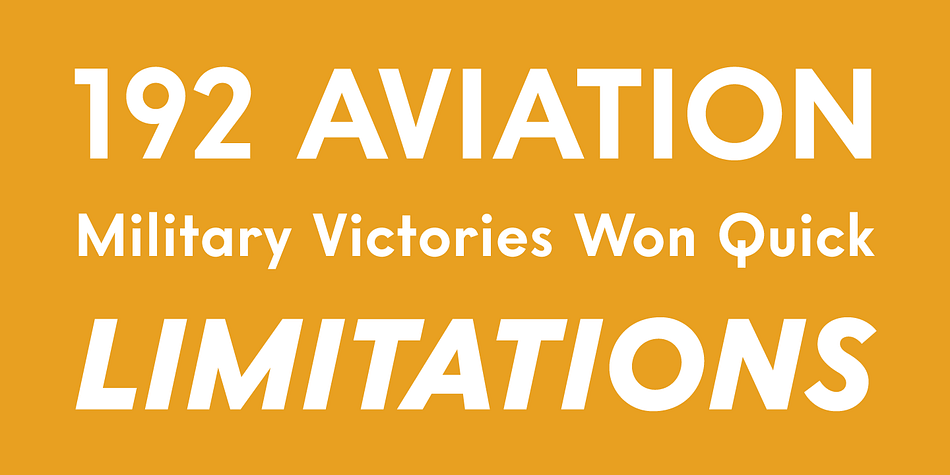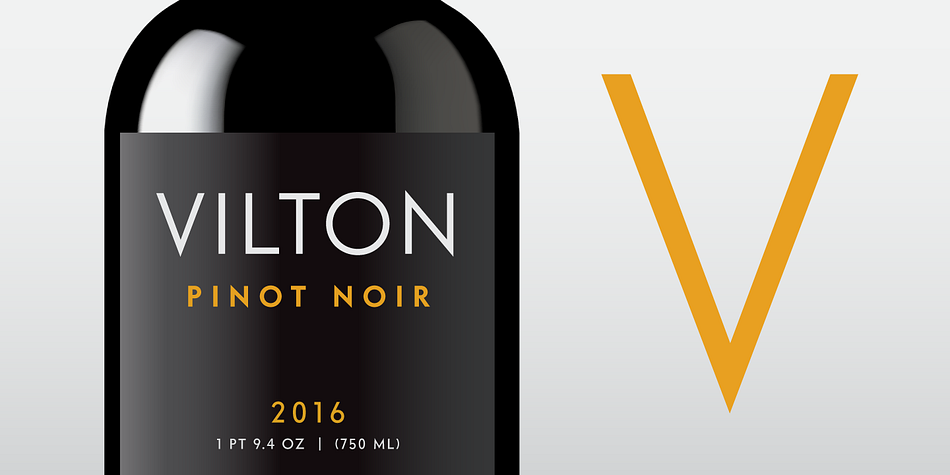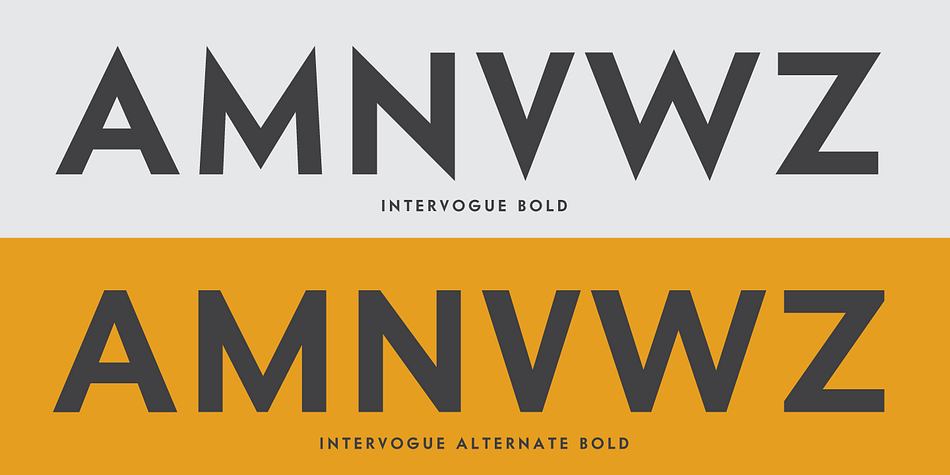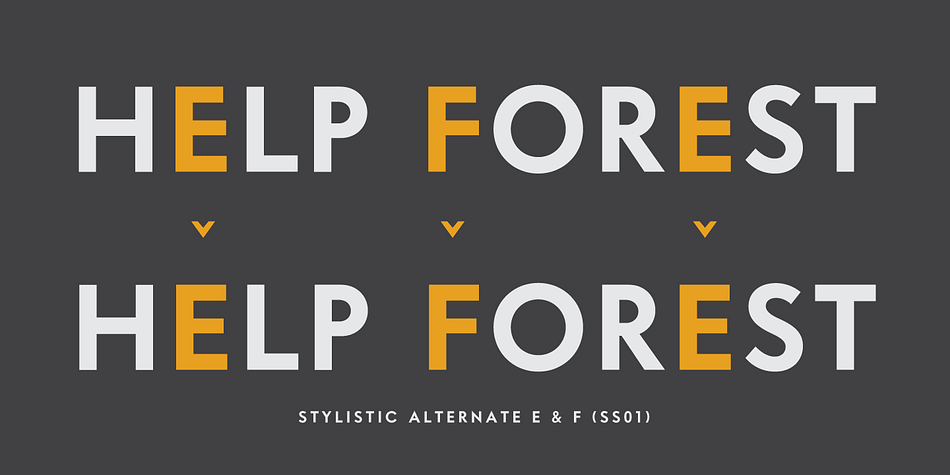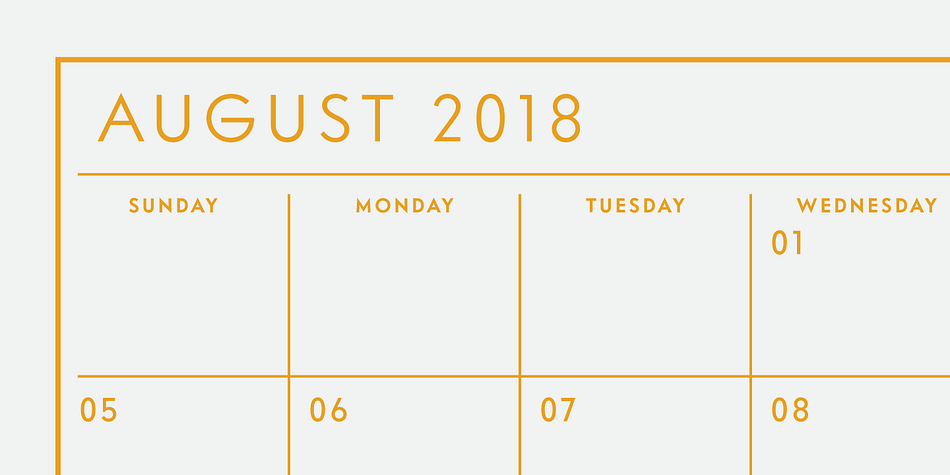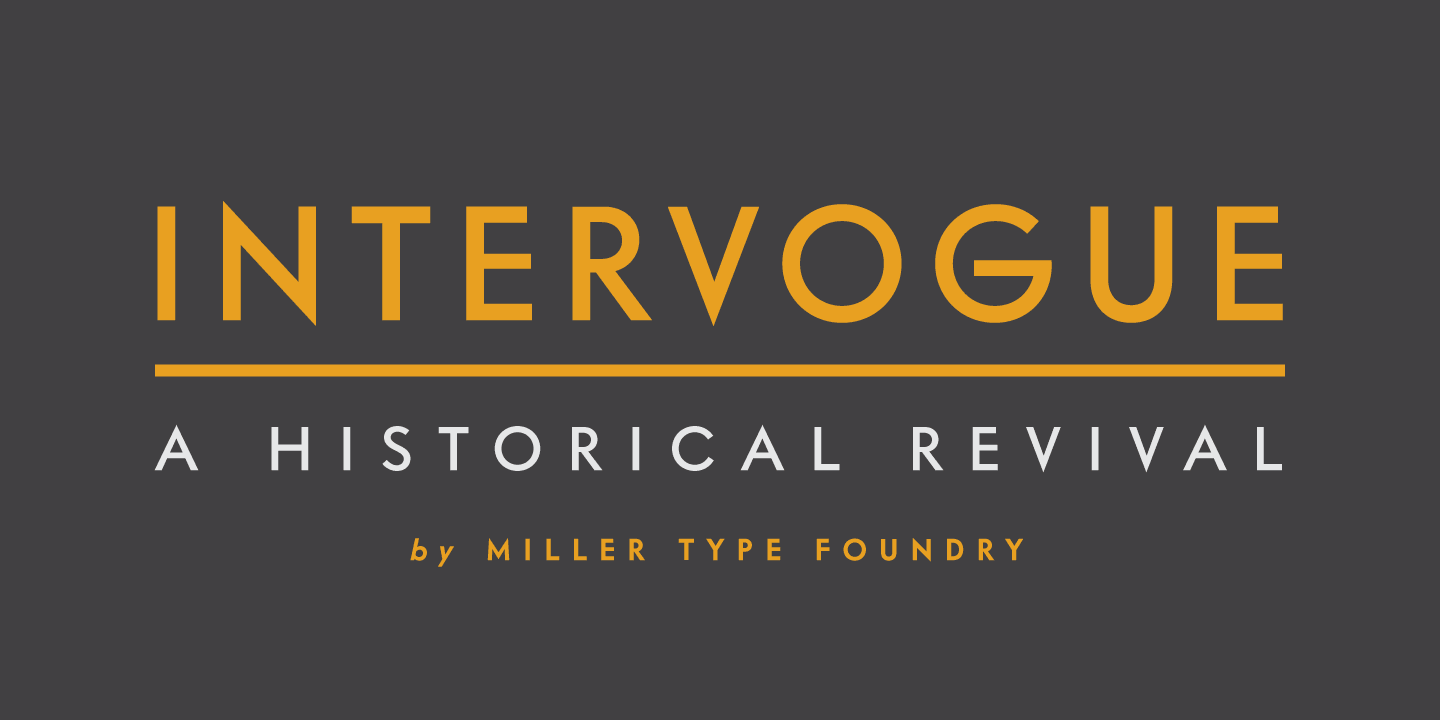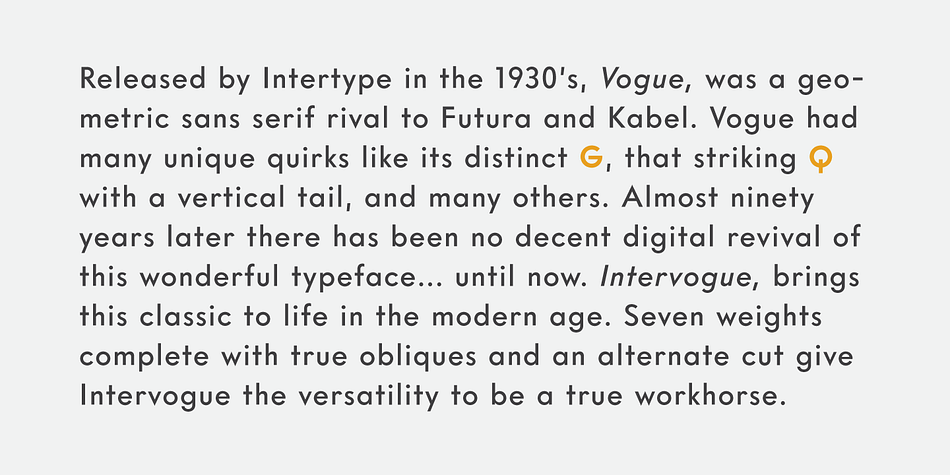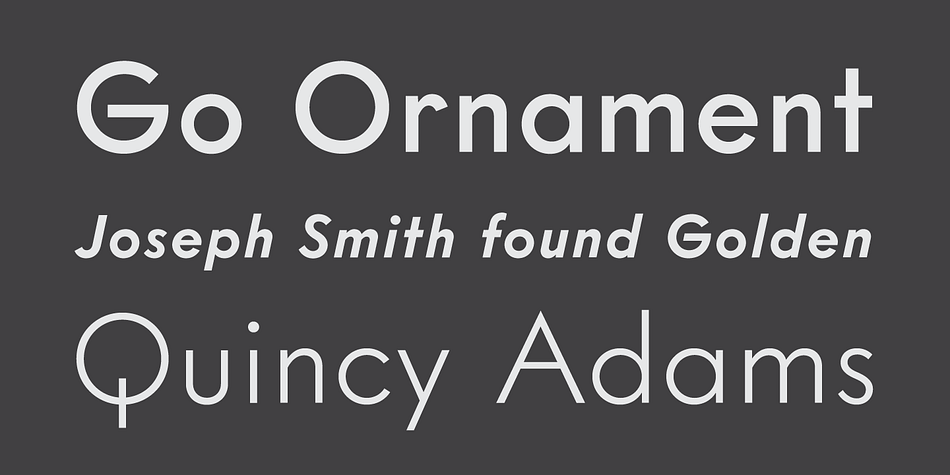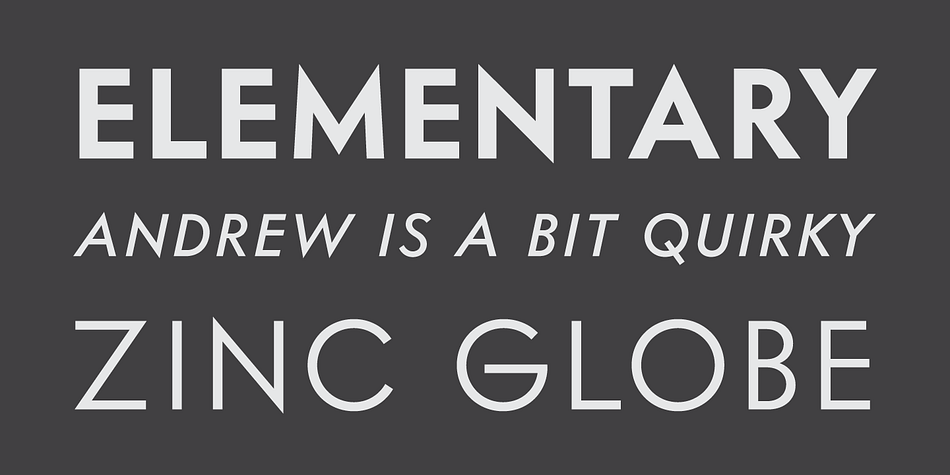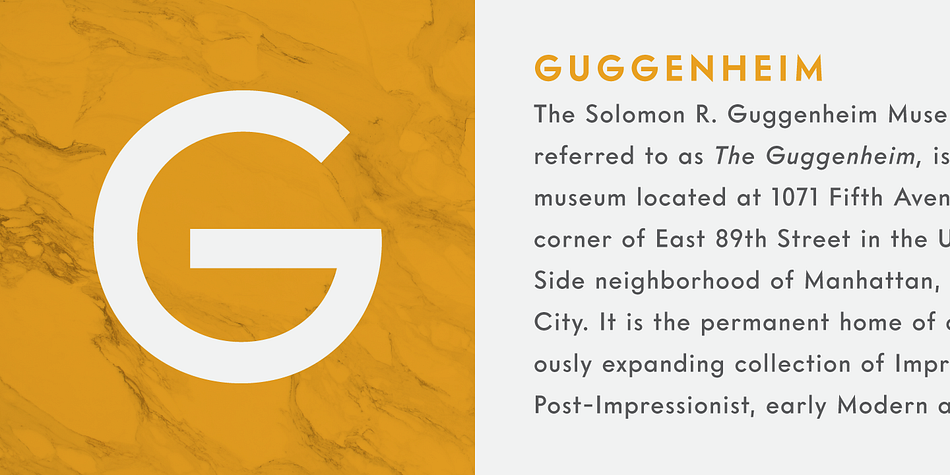
Designed by Richard Miller, Intervogue is a sans serif font family. This typeface has twenty-eight styles and was published by Miller Type Foundry.
Released by Intertype in the 1930’s, Vogue, was a geometric sans serif rival to Futura and Kabel. Vogue had many unique quirks like its distinct G, that striking Q with a vertical tail, and many others. Almost ninety years later there has been no decent digital revival of this wonderful typeface… until now.
Intervogue brings this classic to life in the modern age. Seven weights complete with true obliques and an alternate cut give Intervogue the versatility to be a true workhorse.